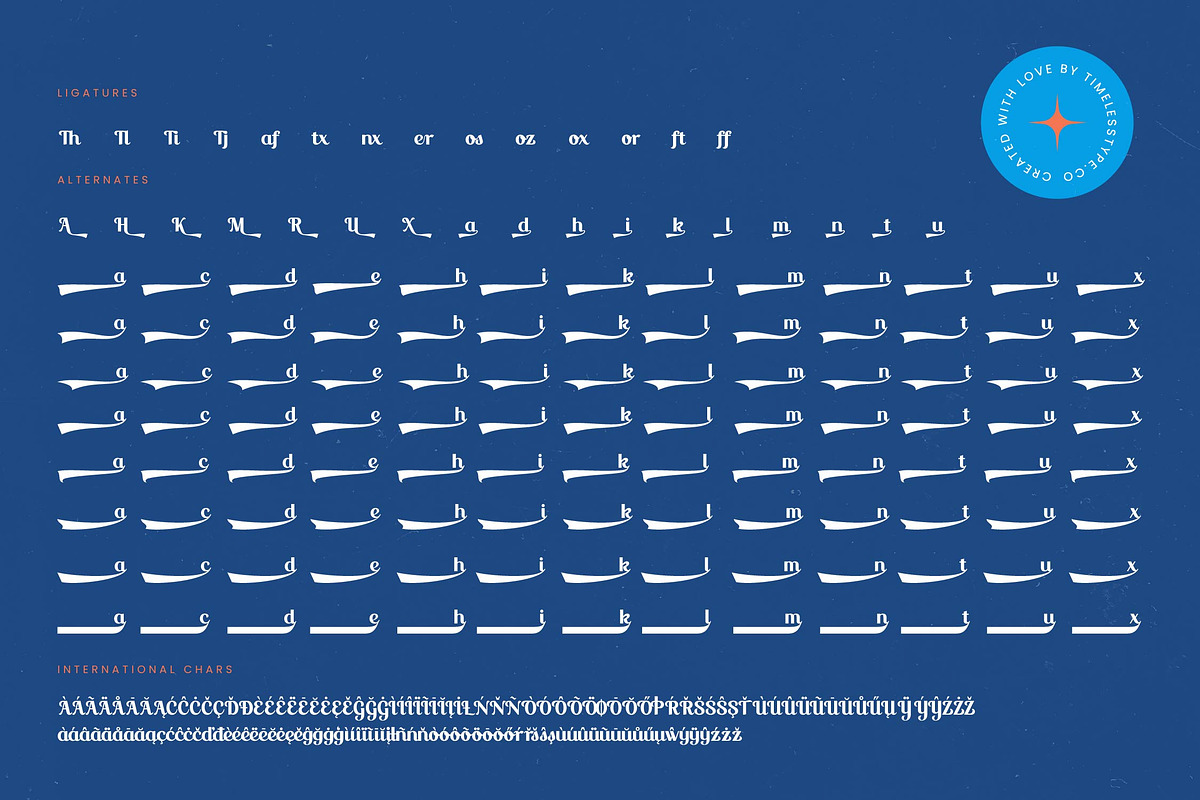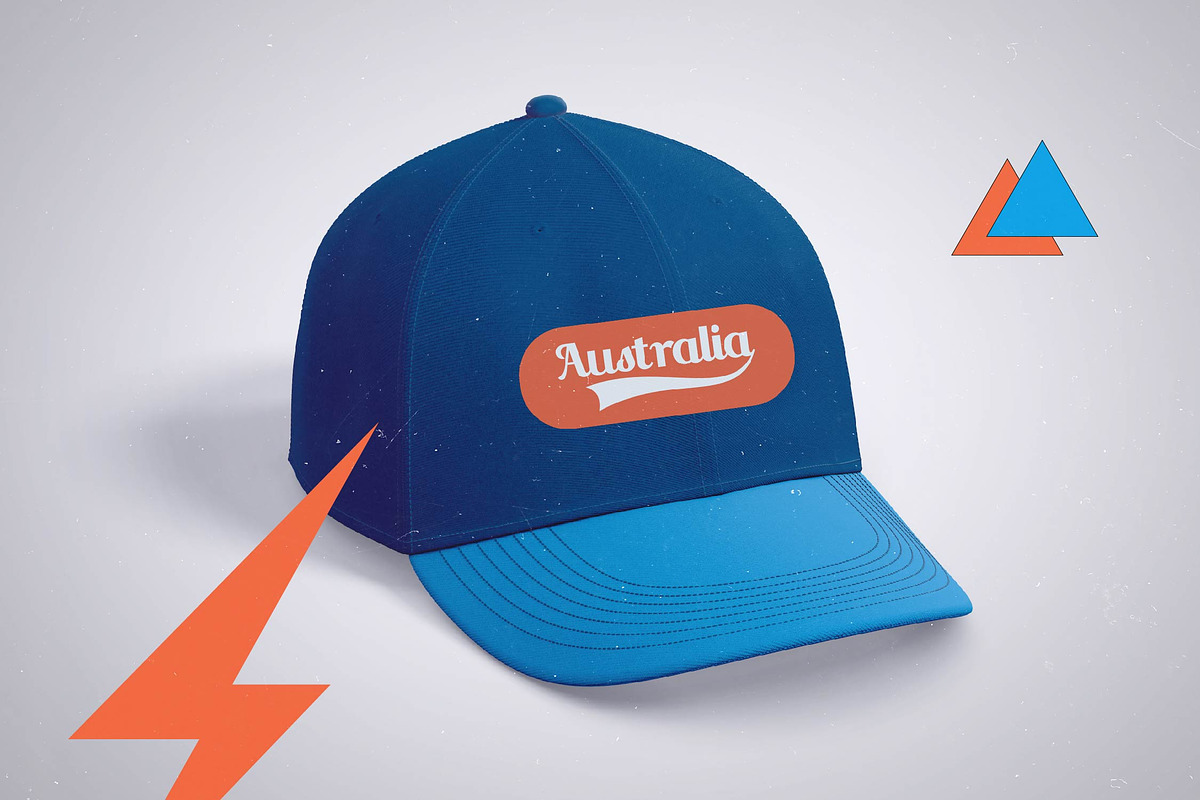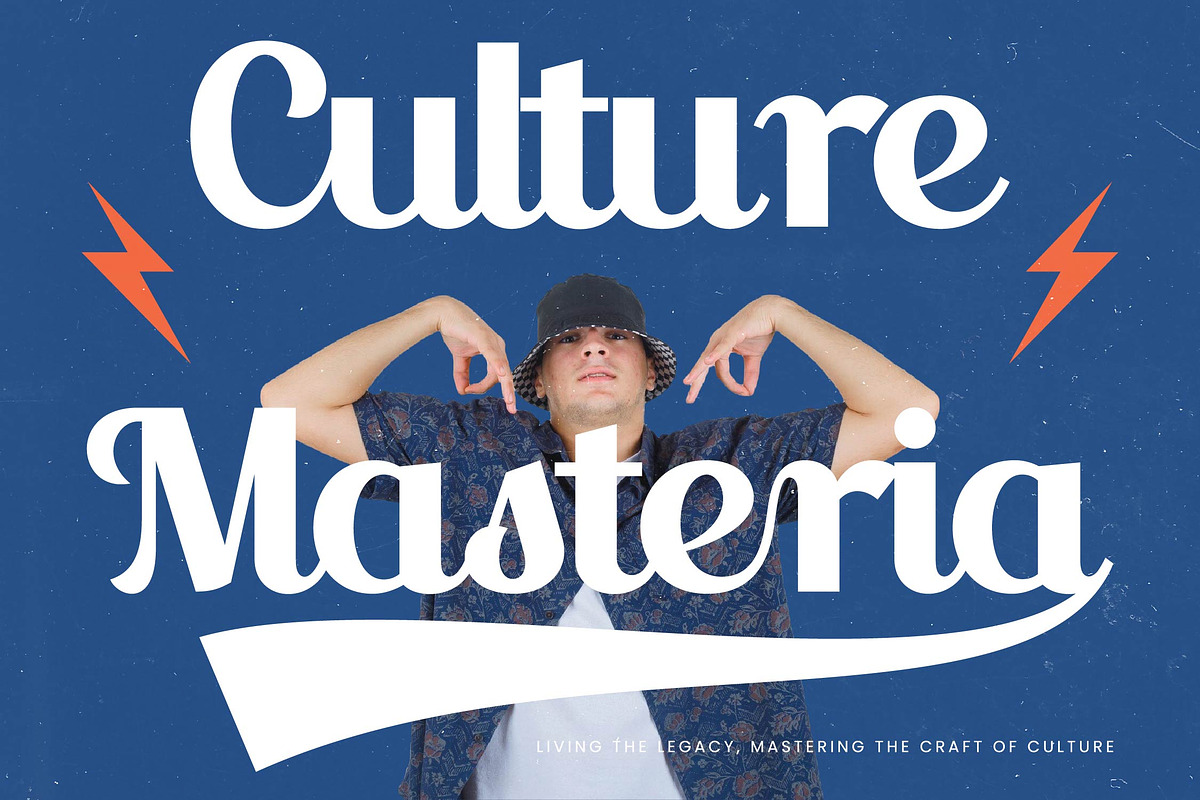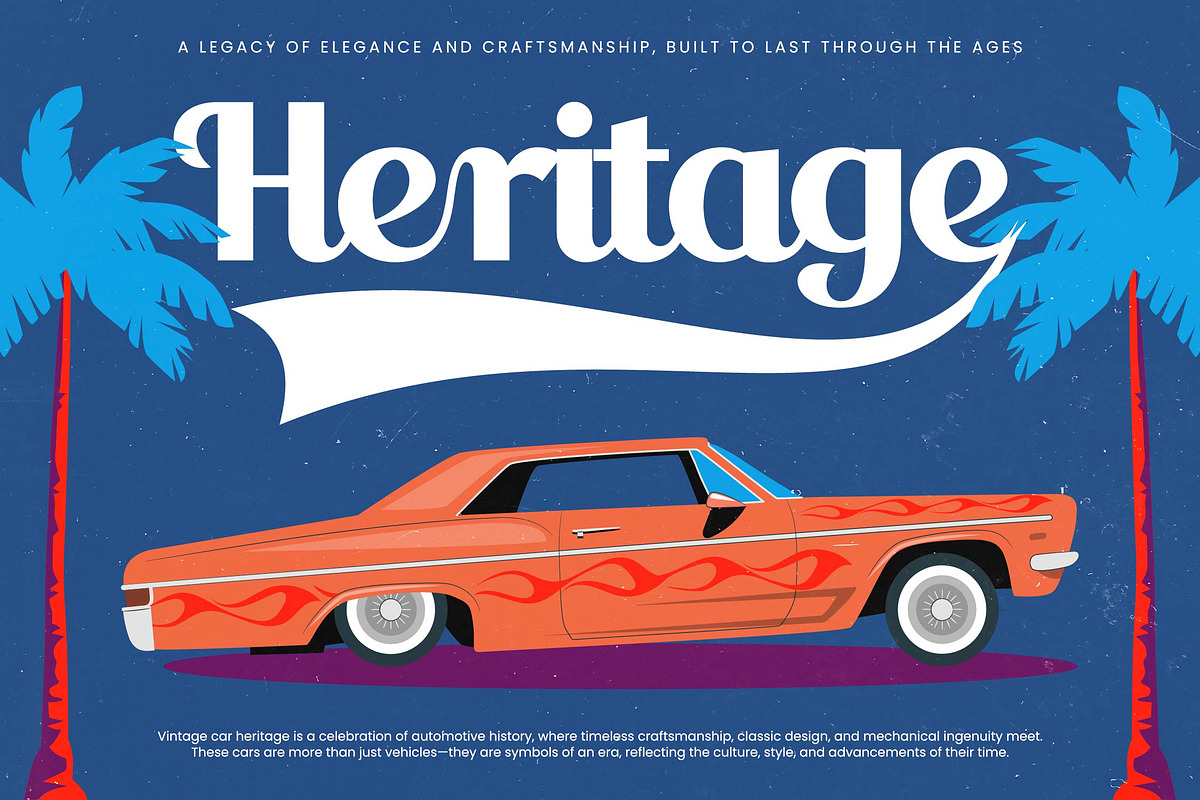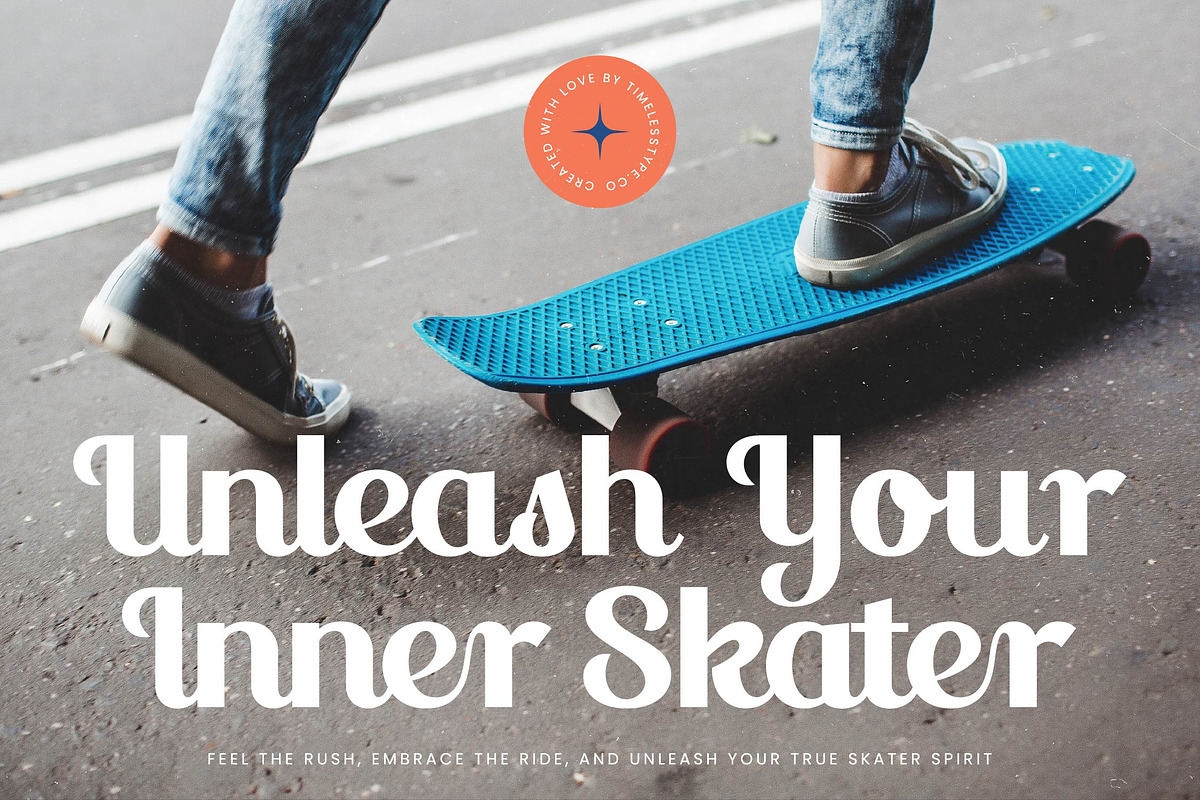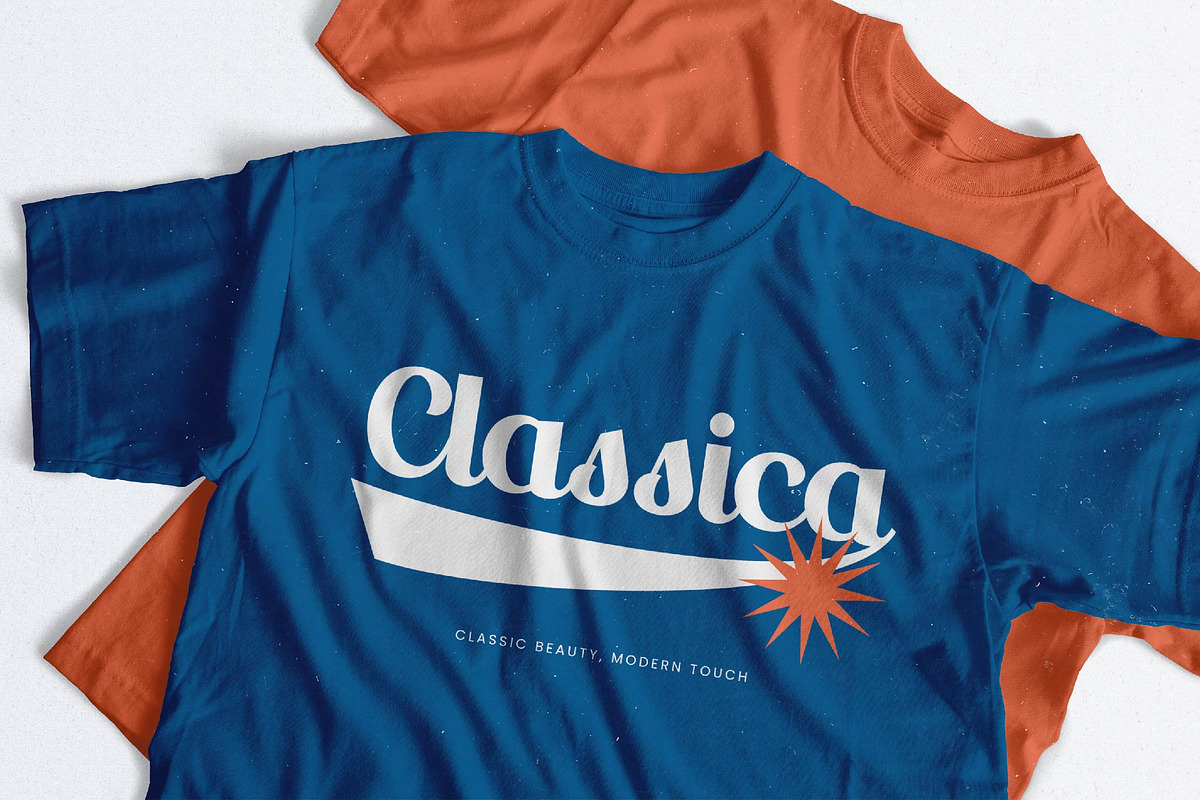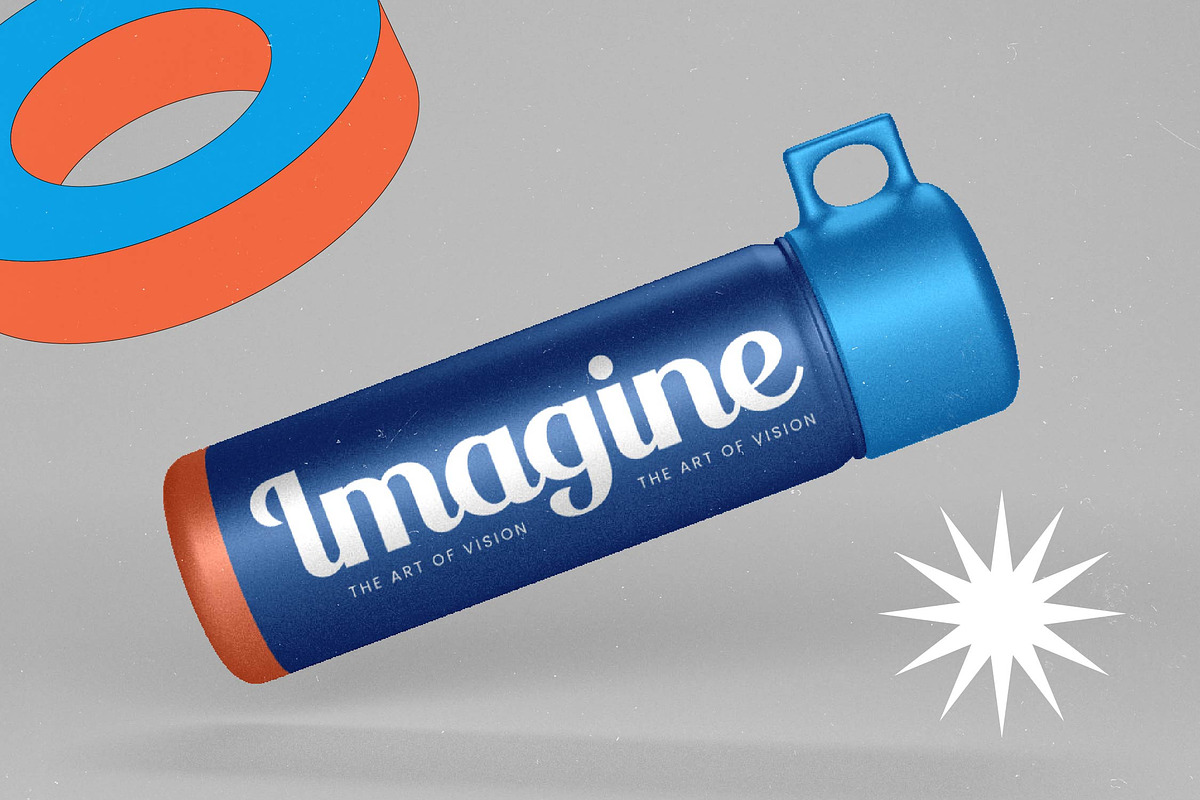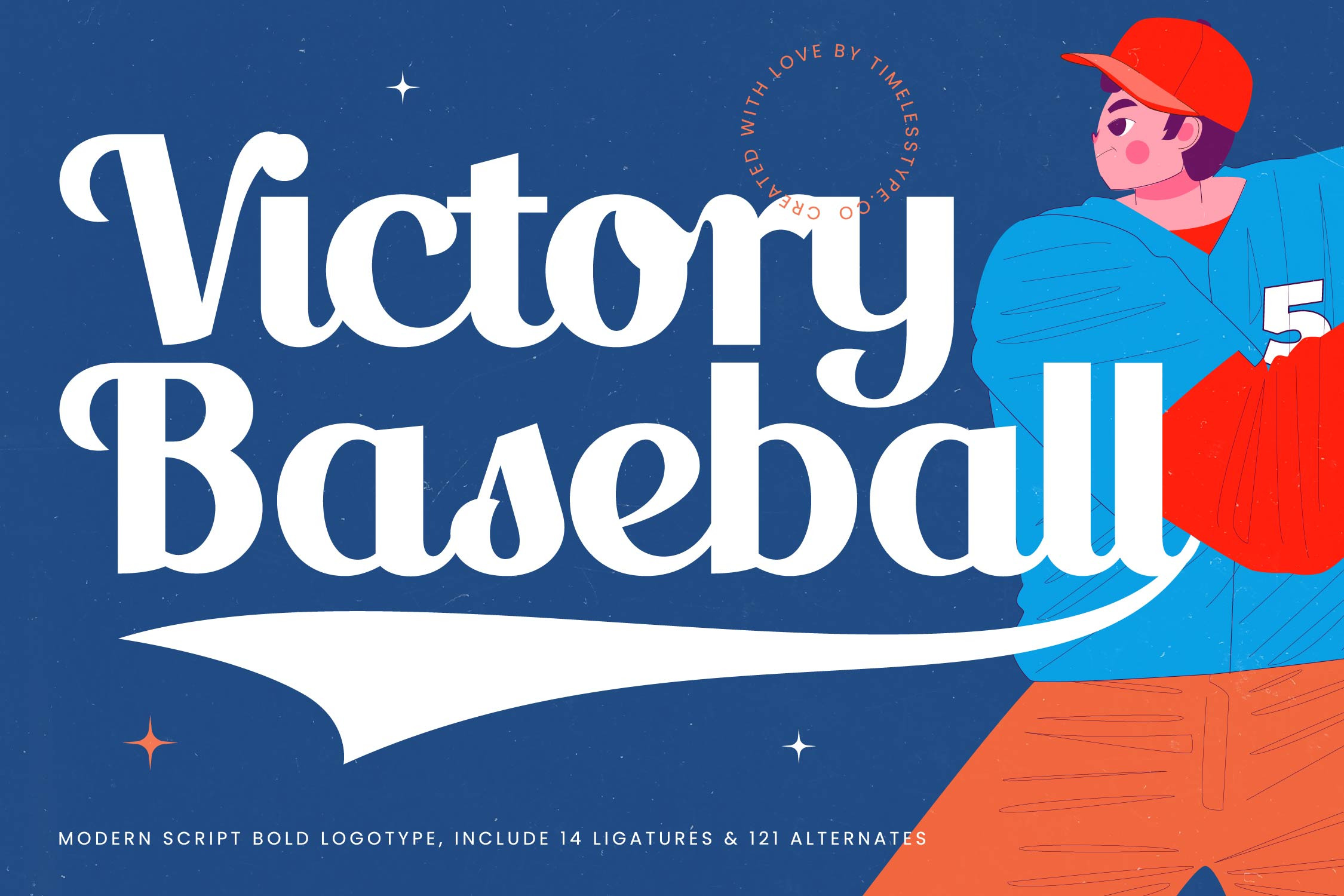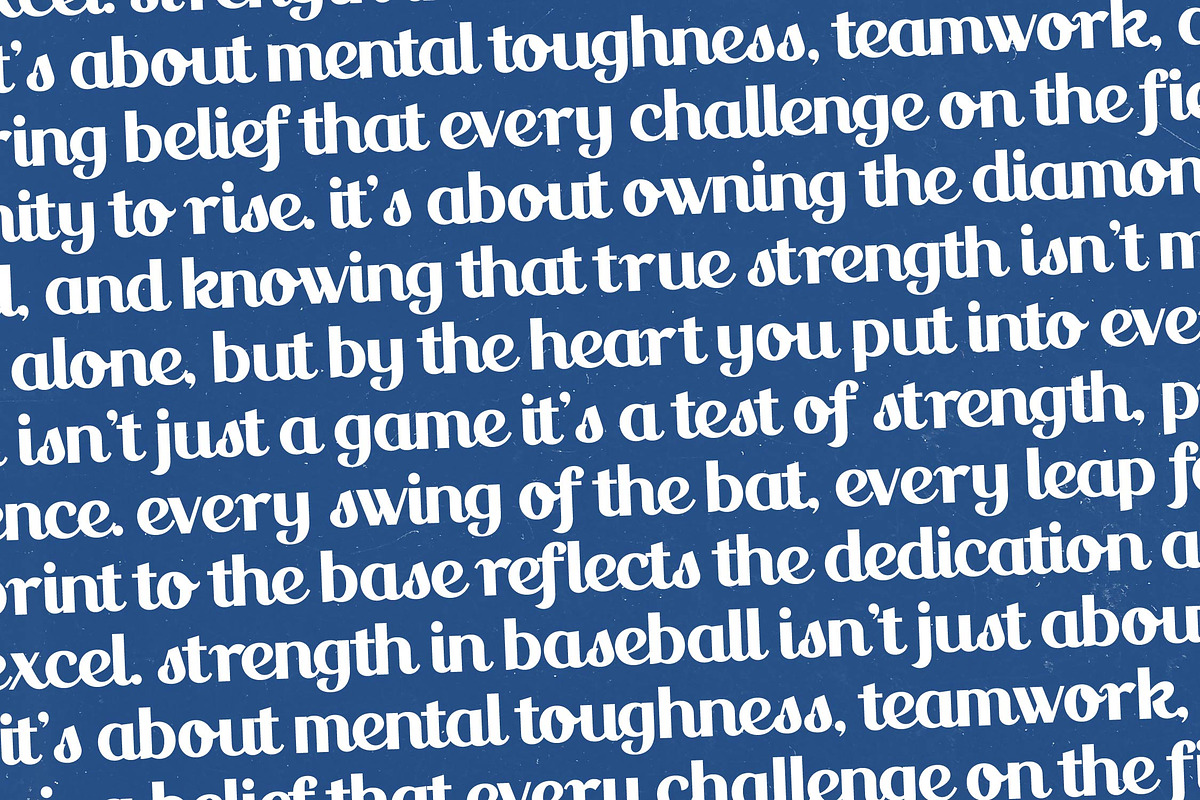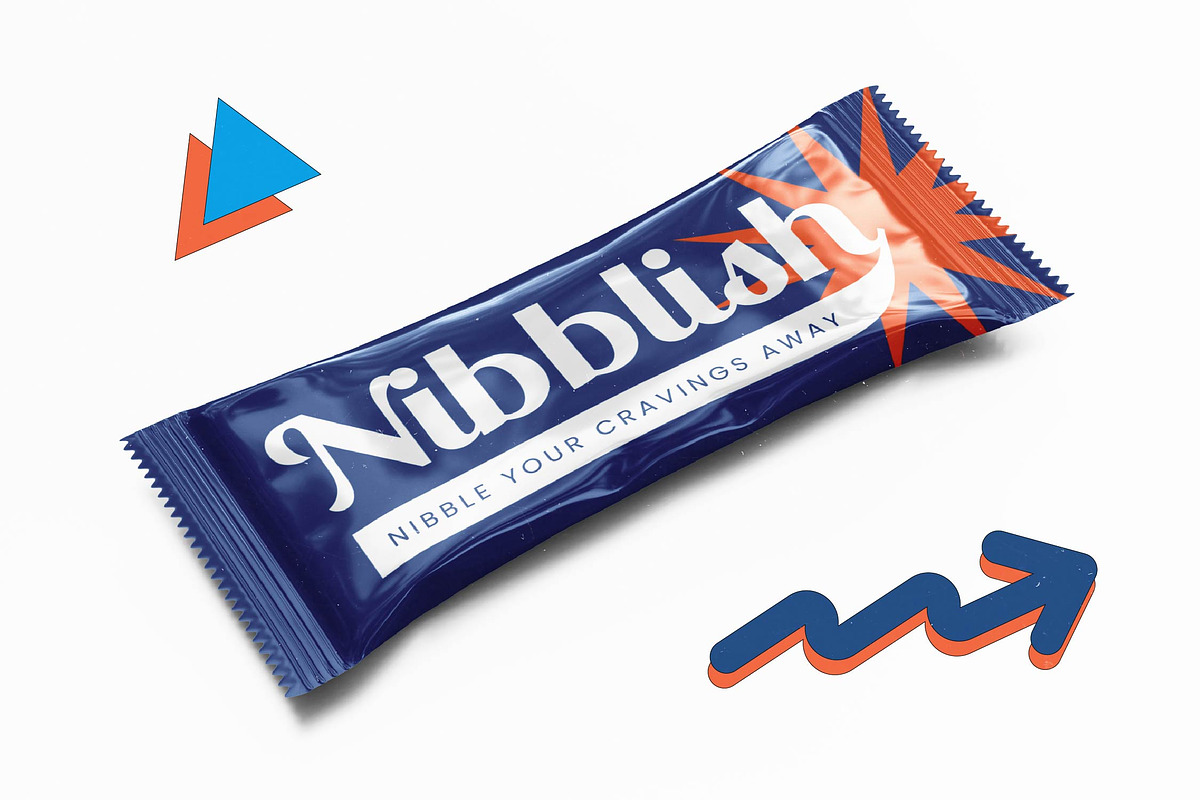
Victory Baseball Retro Sport Font
Step up to the plate with Victory Baseball, a bold and energetic logotype font designed to knock your creative projects out of the park. This striking typeface captures the spirit of the game with an unmistakable retro flair and a modern, polished execution.
Inspired by the classic aesthetics of mid-century American sportswear and collegiate team logos, this font brings a sense of nostalgia and triumph. It evokes the feeling of a crisp summer afternoon at the stadium, combining hand-lettered craftsmanship with the precision of contemporary digital design.
Exuding confidence and power, this modern serif display hybrid provides an unparalleled branding impact for projects that require a strong, athletic presence. Its heavy weight and fluid connections create a sense of movement, functioning as a high-contrast serif script that delivers a luxury typography feel and works beautifully as a bold editorial font.
As the modern serif trend continues to embrace bold, nostalgic silhouettes, this typeface stands at the forefront of character-driven typography. It perfectly aligns with the current market demand for editorial display fonts that bridge the gap between vintage varsity charm and minimalist contemporary sophistication.
This versatile typeface is a powerhouse for logo design and sports branding, but its utility extends far beyond the field. It is an exceptional choice for bold editorial layouts, eye-catching packaging, masculine wedding invitations, and high-energy fashion streetwear lines.
Unlock endless creative possibilities with an extensive collection of 14 ligatures and 121 alternates, including specialized tail swashes that add a professional finishing touch to any word. The font is fully equipped with multilingual support and a comprehensive range of international characters to ensure your message resonates globally.
- Ligature 14 Alternate 121